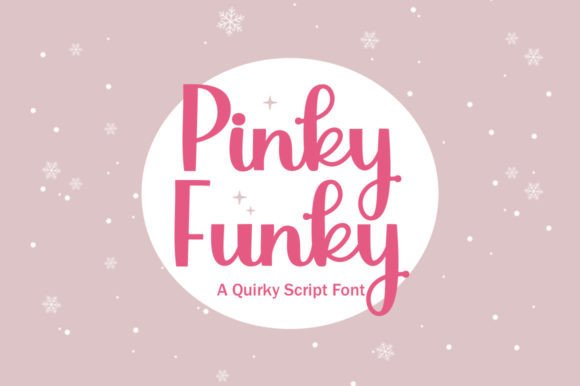
Prepare to be captivated by Pinky Funky, the extraordinary script font that exudes joy and personality! Crafted by the talented luckytype.font, this font is a masterpiece waiting to be unleashed in your creative projects.
Unleash the Magic of Pinky Funky
With Pinky Funky, you hold the key to unlocking a world of visual wonders. Its enchanting handwritten style dances across your screen, captivating hearts with its playful charm. This font is more than just a collection of letters; it's an invitation to express your creativity like never before.
The Enchanting Halloween Charm
As the season of spooks and surprises approaches, Pinky Funky emerges as the perfect companion for your Halloween endeavors. Create spine-tingling posters that send shivers down your spine, or design invitations that ooze eerie elegance. Let Pinky Funky cast its spell on your Halloween creations and leave your audience spellbound.
Beyond Halloween, a World of Possibilities
Pinky Funky's versatility extends far beyond the realm of Halloween. Its friendly and whimsical nature makes it ideal for a myriad of projects. Craft heartwarming greeting cards, design enchanting logos, or add a touch of whimsy to your social media posts. Pinky Funky is your trusted companion, ready to elevate your designs with its captivating charm.